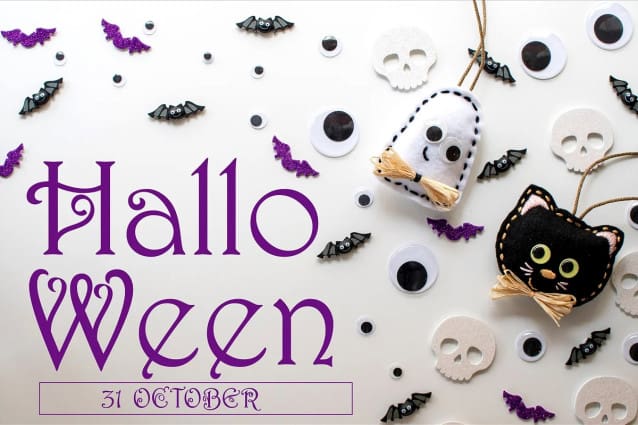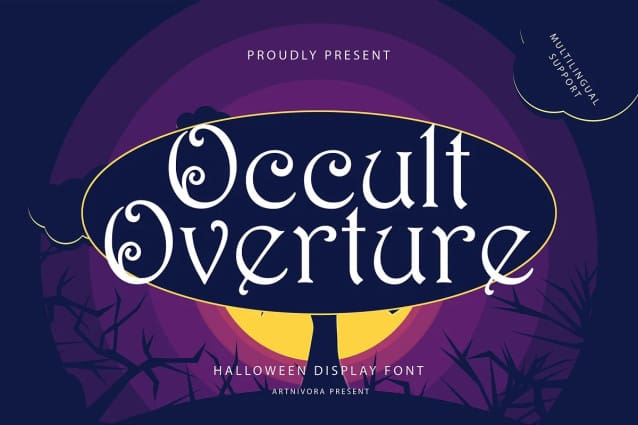
Occult Overture Font
Occult Overture Font, a simple and display font. So perfect for you who needs a typeface for logo designs, magazine, social media, brochure, and many more.